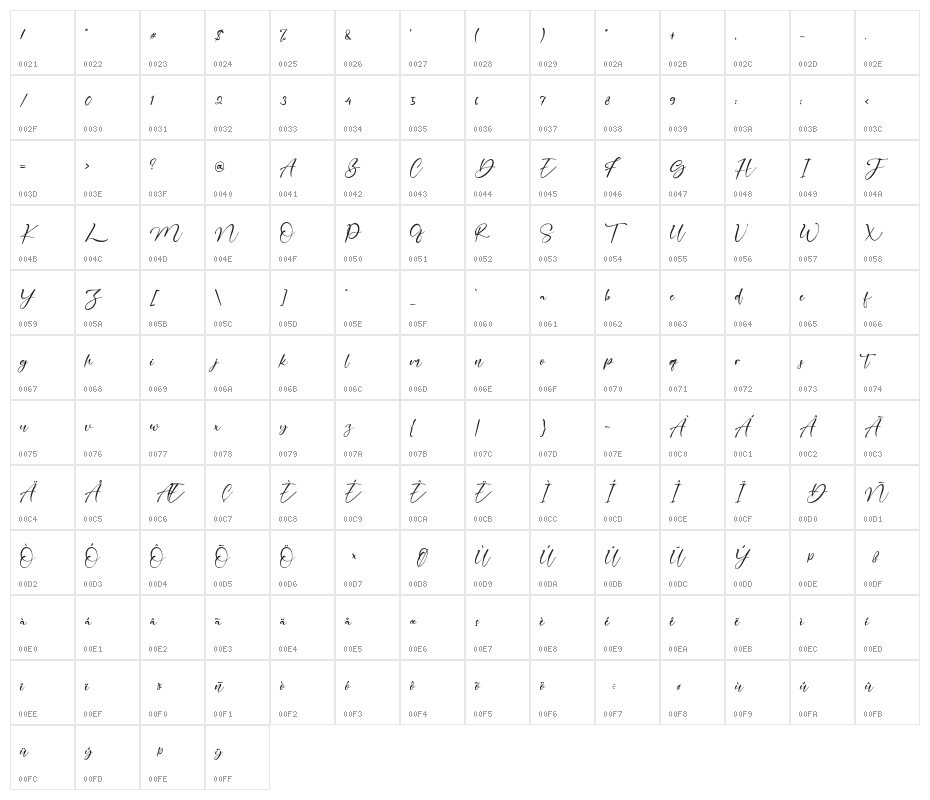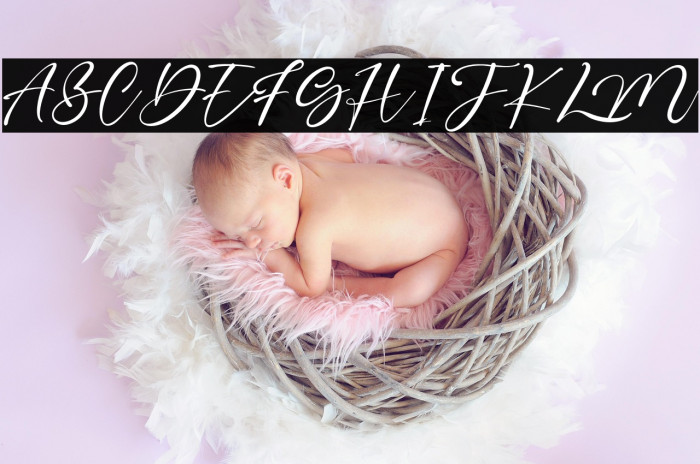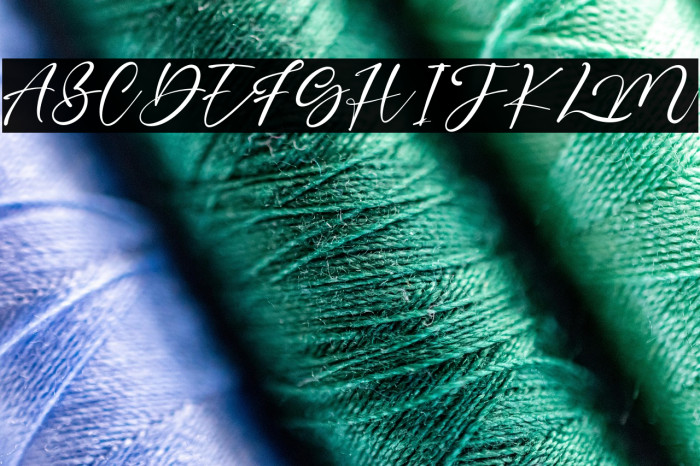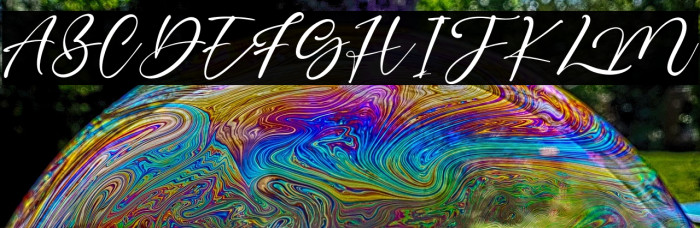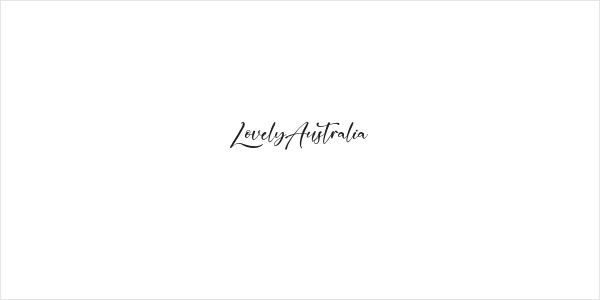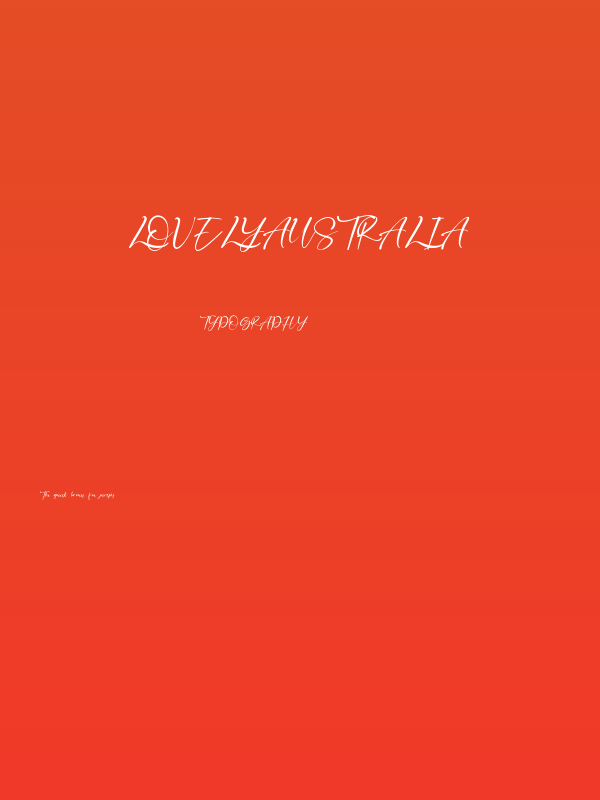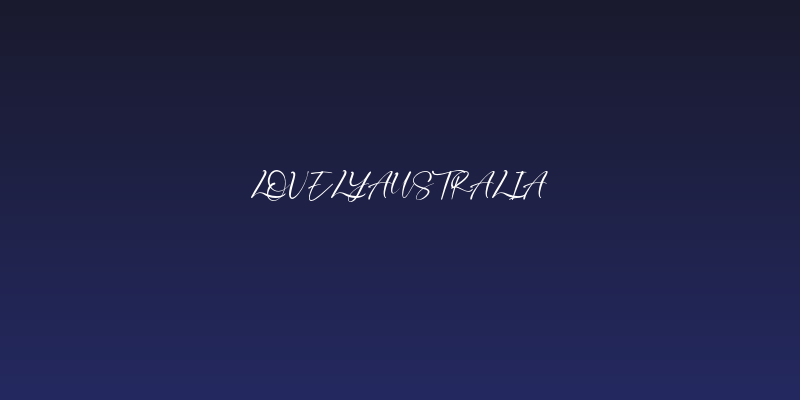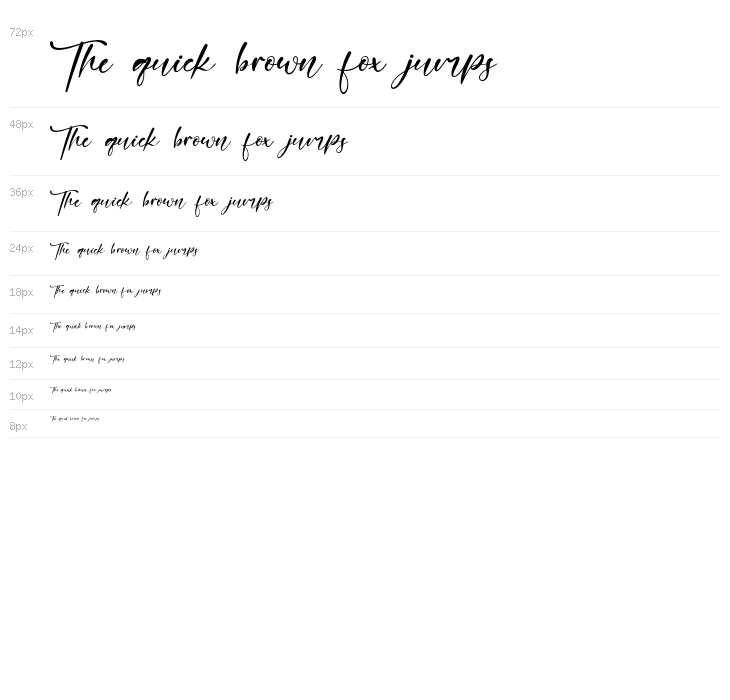
LovelyAustralia Font
LovelyAustralia Description
This font exudes elegance and sophistication with its fluid, cursive style. The characters are gracefully connected, creating a seamless flow that is both artistic and readable. The uppercase letters are tall and slender, with gentle curves that add a touch of refinement. The lowercase letters maintain a consistent style, with some letters featuring unique loops and swirls that enhance the font's decorative appeal. Numbers and special characters are designed to match the overall aesthetic, ensuring a cohesive look across all text. This font is perfect for projects that require a personal touch, such as invitations, greeting cards, and branding materials.
| Overall Style | Elegant, Decorative |
| Use Case | Headlines, Invitations, Branding |
| Proposed Projects | Ideal for wedding invitations, greeting cards, personal branding, and elegant logos. |